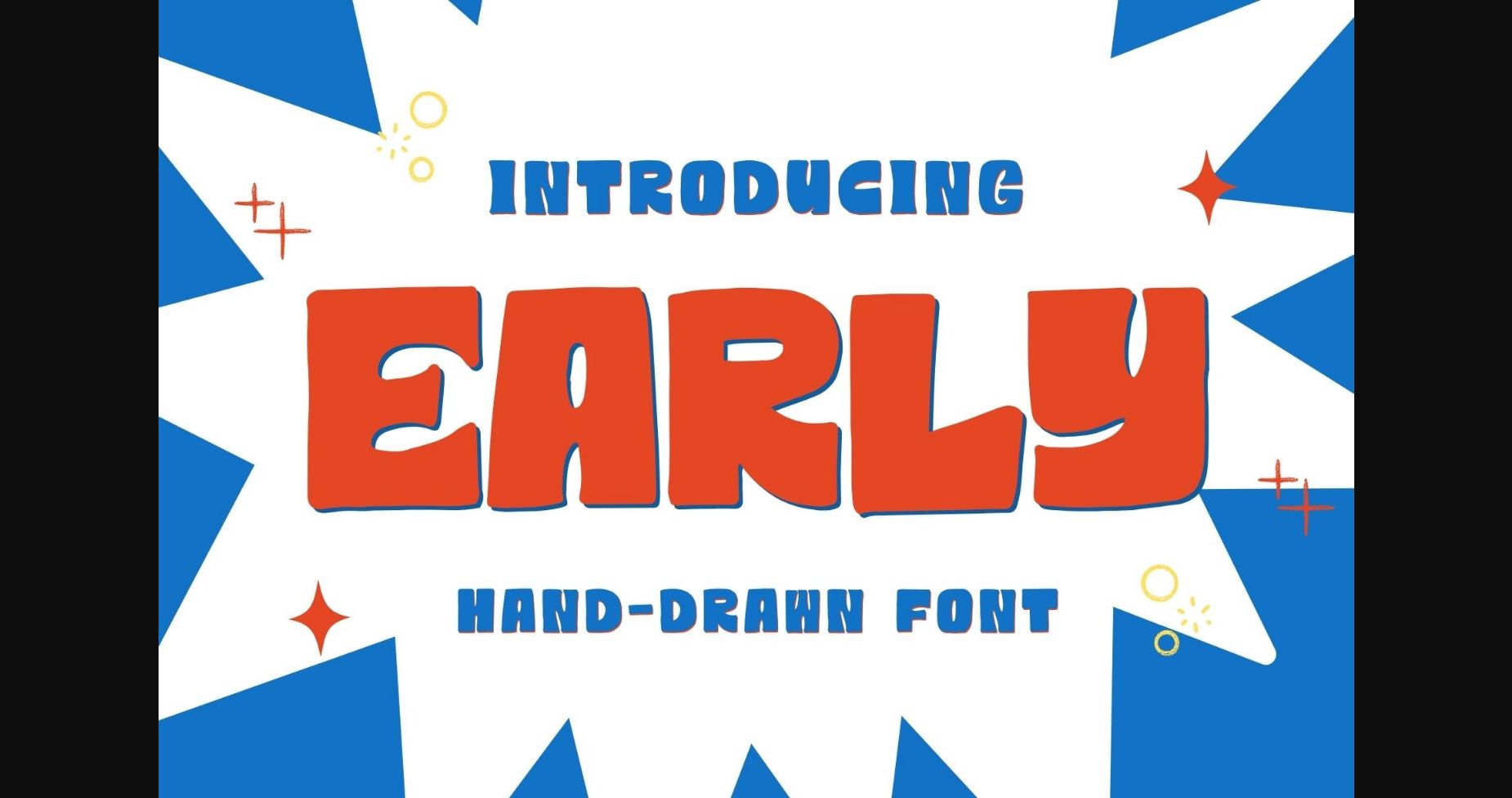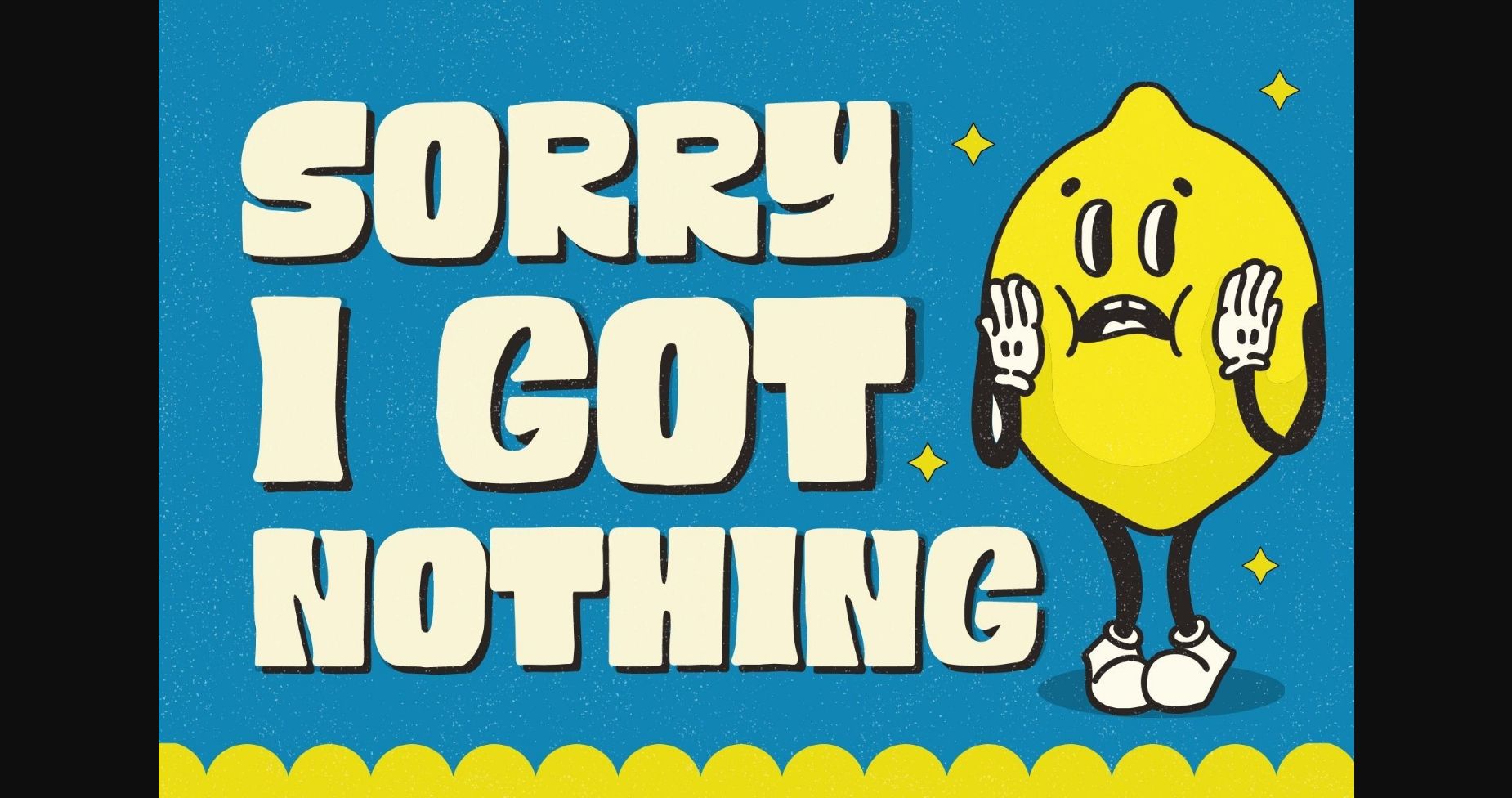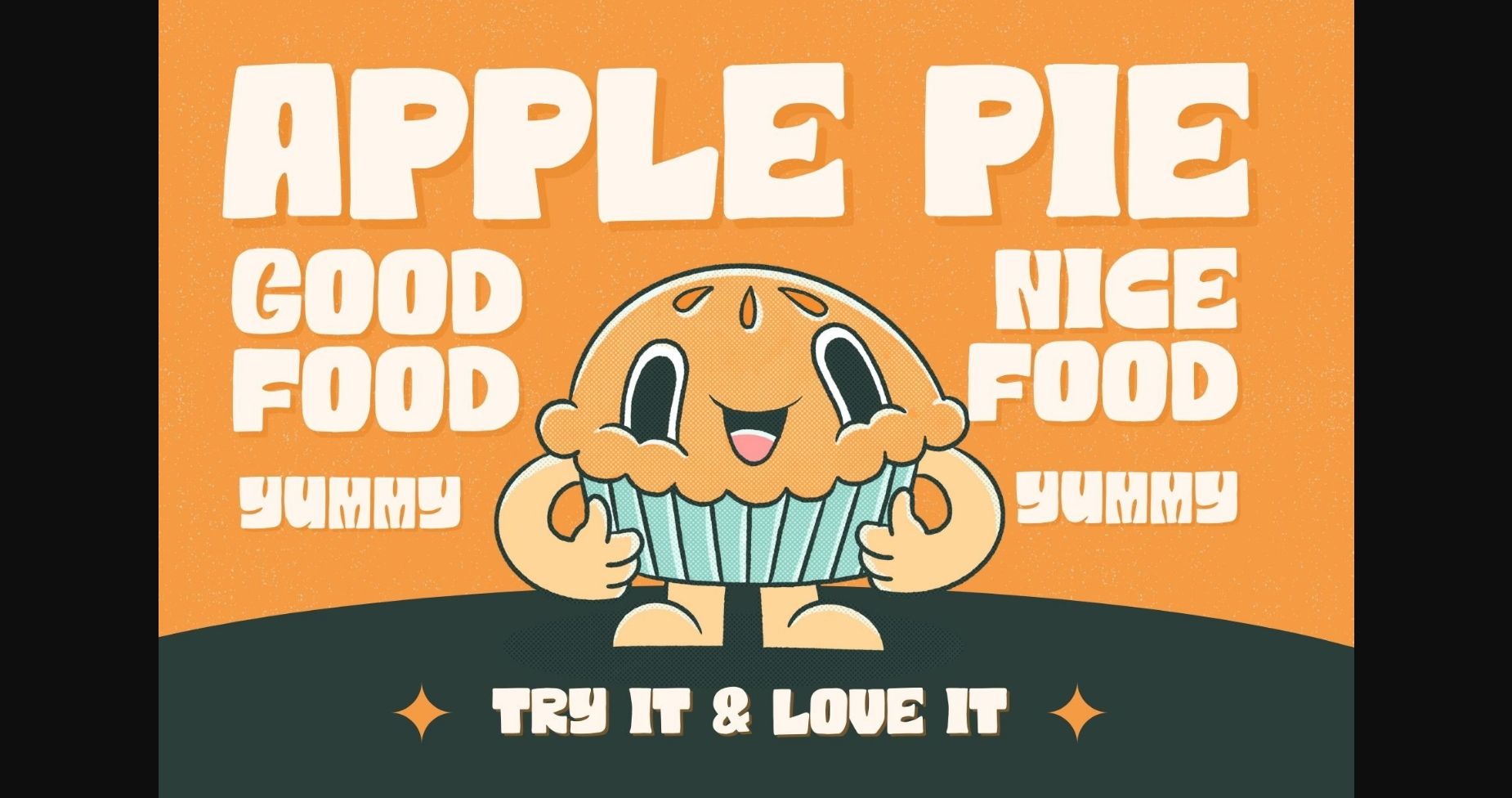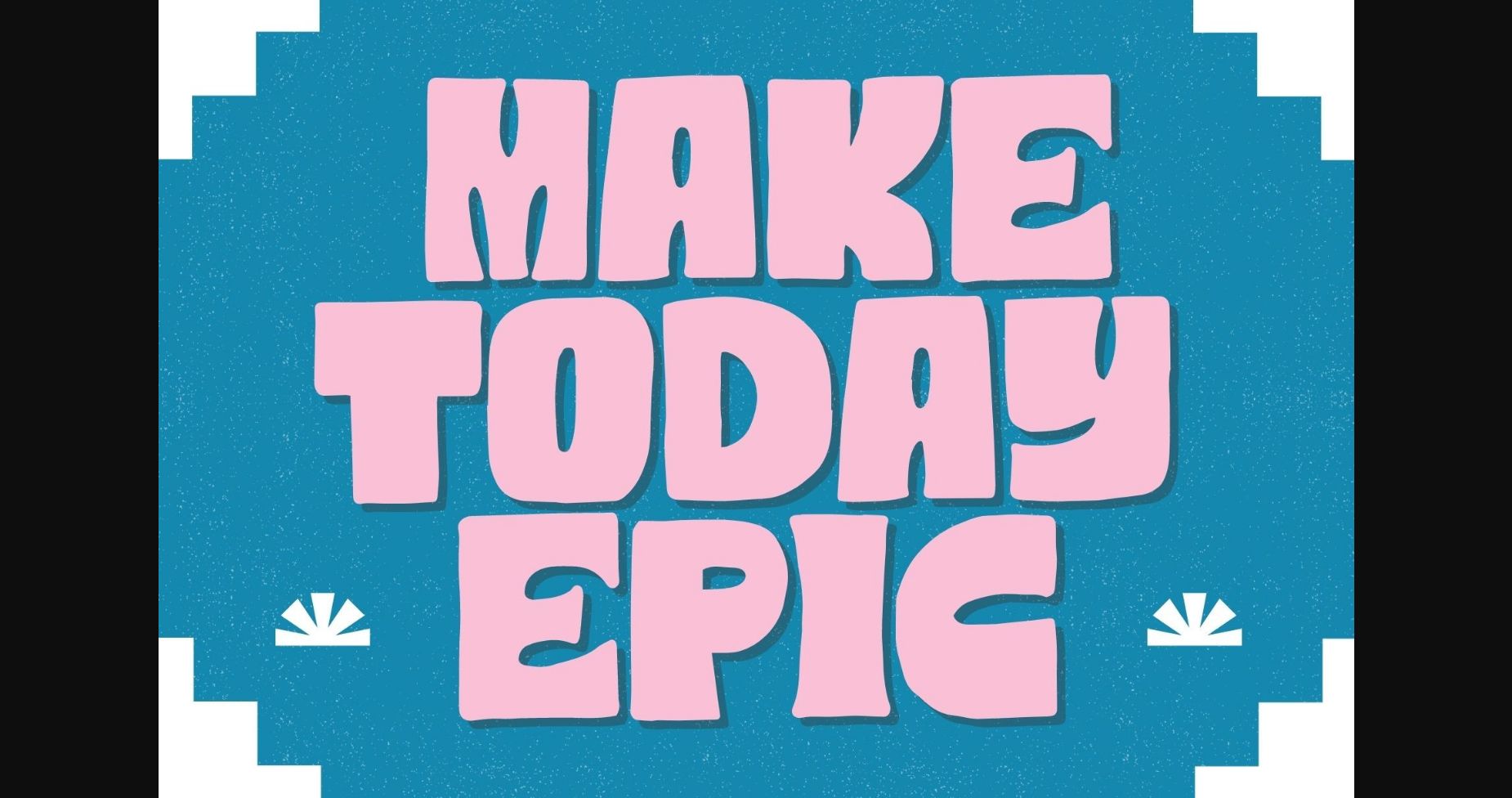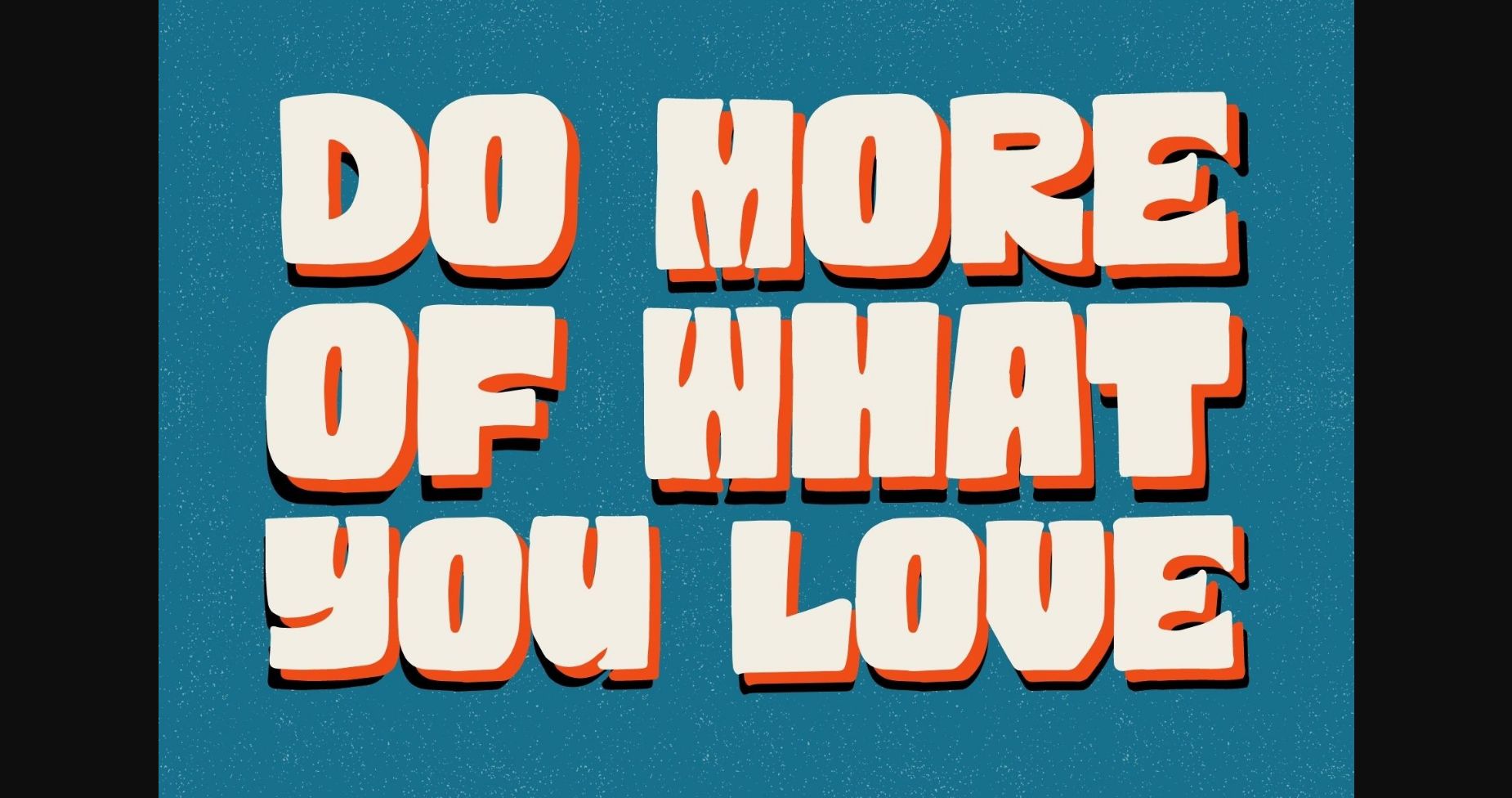
Early Font
About Early Font
Early is a bulky and attractive sans-serif font that is bold, impactful, and impossible to ignore. With thick, powerful strokes and striking letterforms, it demands attention and makes a statement. Whether used for headlines, posters, or branding, it conveys strength, confidence, and a sense of modernity.